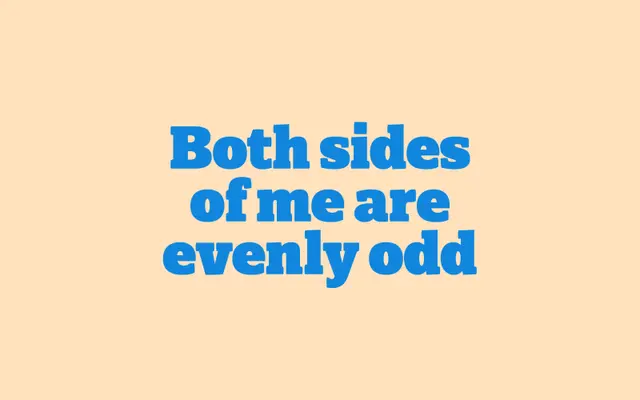
Fran specimen from The Designers Foundry
A six-weight Egyptian slab serif by Max Saille, with unbracketed serifs and contrast that builds from delicate in the lighter cuts to chunky and assertive at the heavier end.
Designed by Dutch-born, New York-based Max Saille, the family spans Thin to Ultra across six weights, with the lighter styles suited to continuous text and the heavier cuts intended for display use. The unbracketed serifs become progressively chunkier as weight increases, giving the family a coherent but varied character across settings. OpenType features include oldstyle and lining numerals, case-sensitive forms, contextual alternates and an alternate set of accented uppercase characters for tighter titling.
Fran is a slab serif with unbracketed serifs and subtle stroke contrast that intensifies across the weight range, fitting the Egyptian slab tradition.